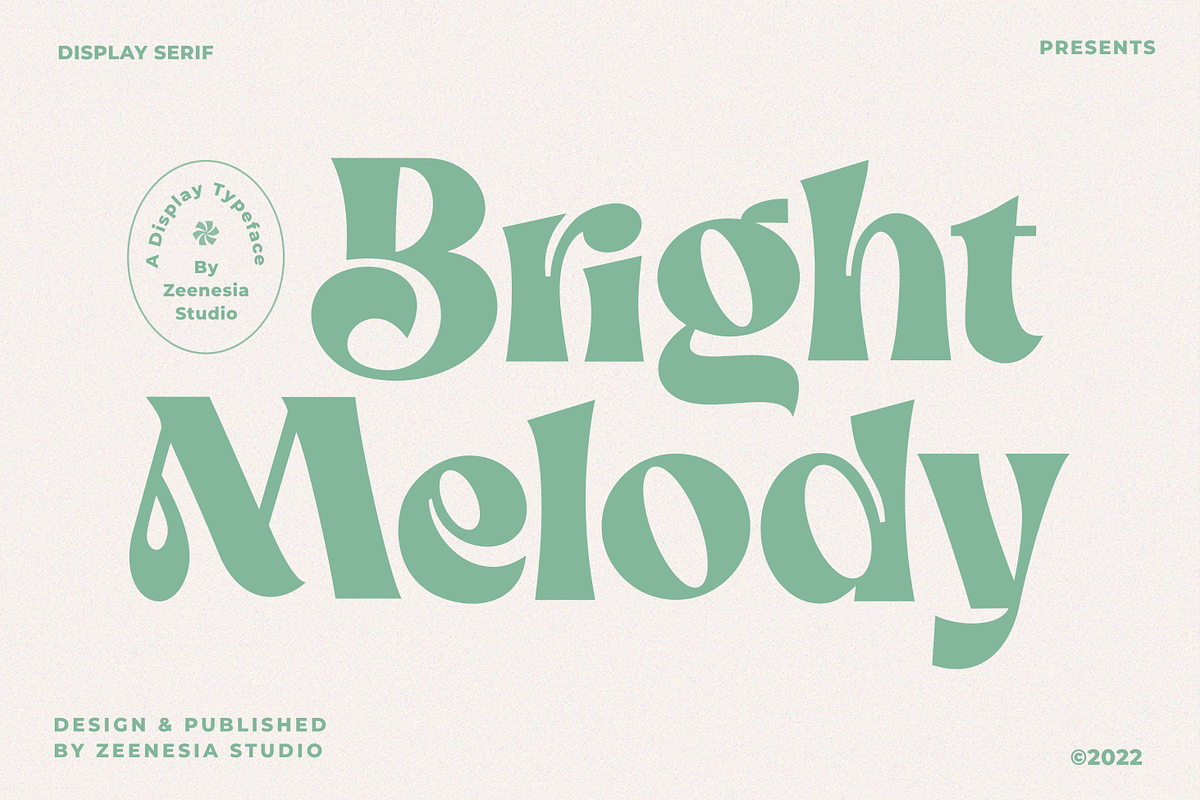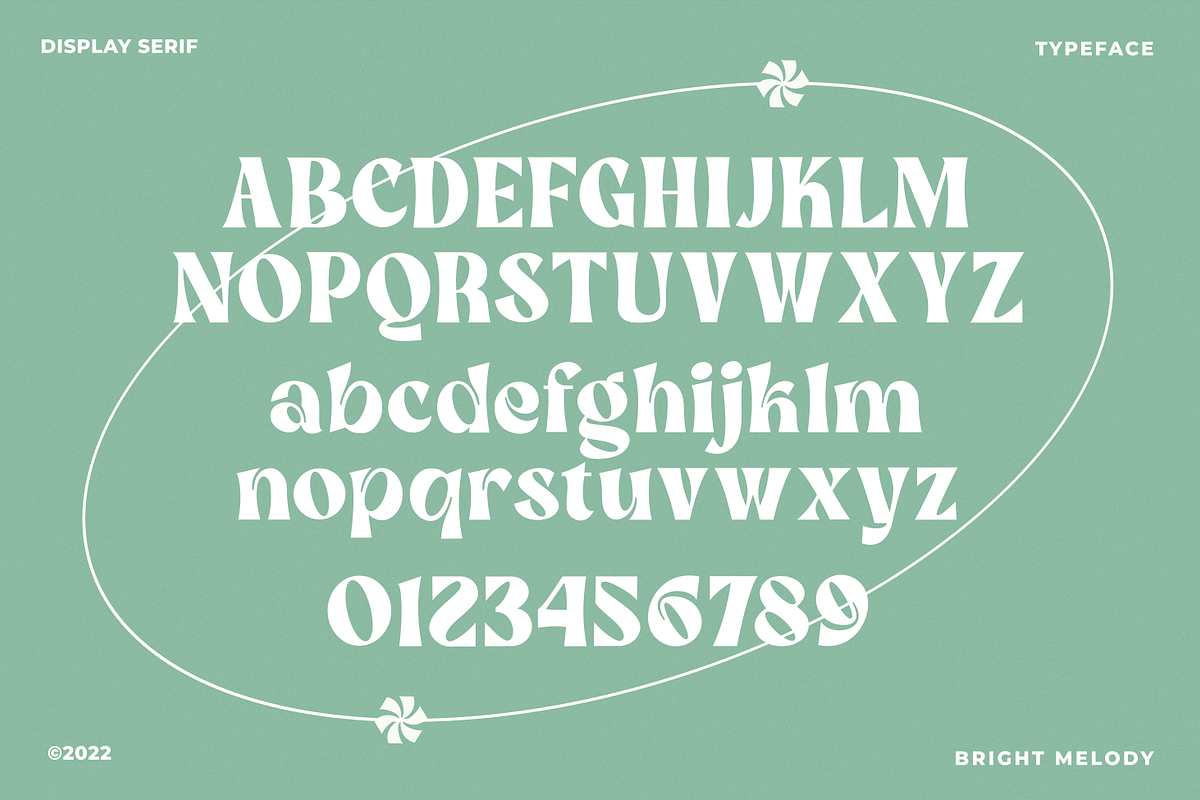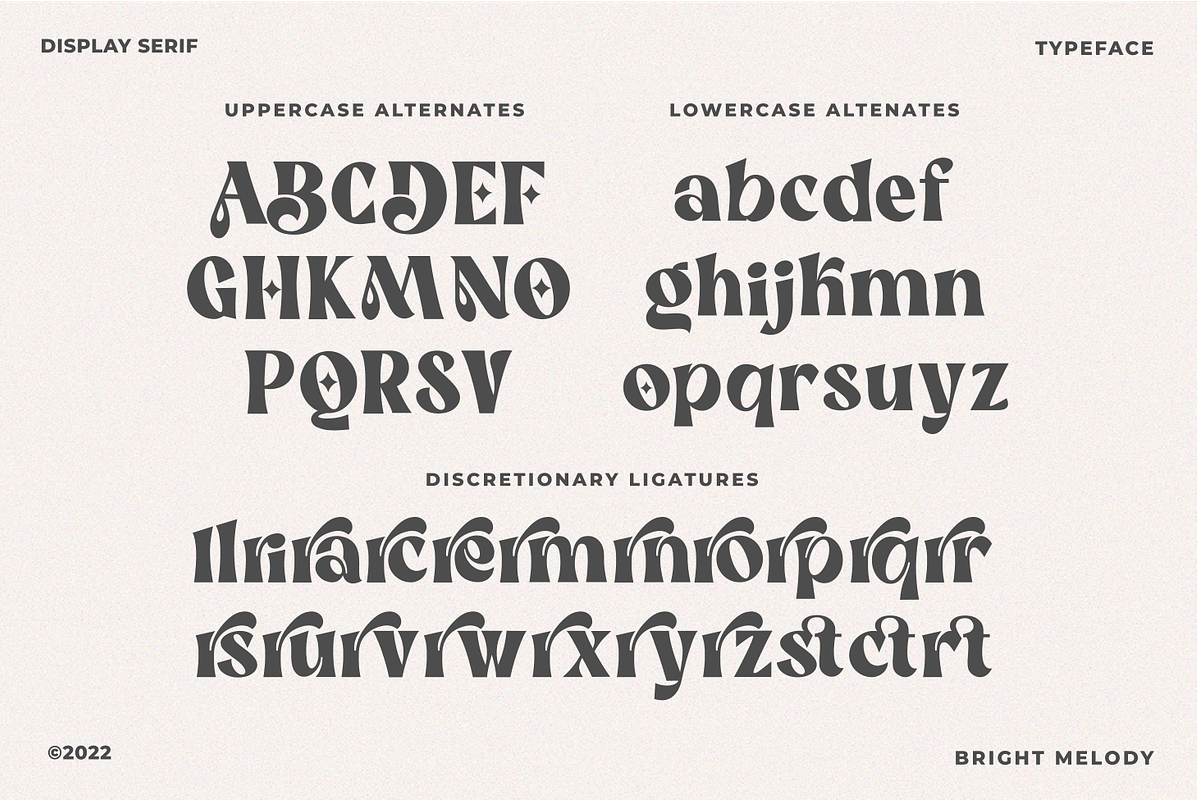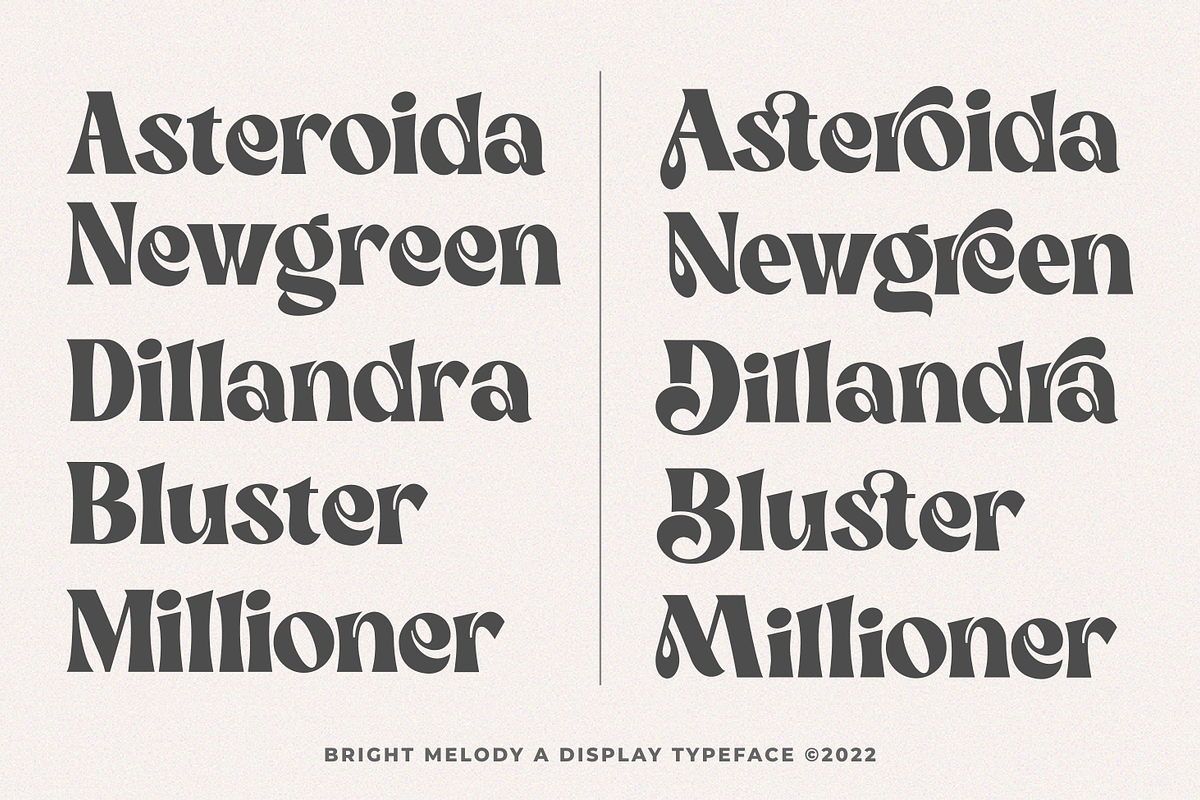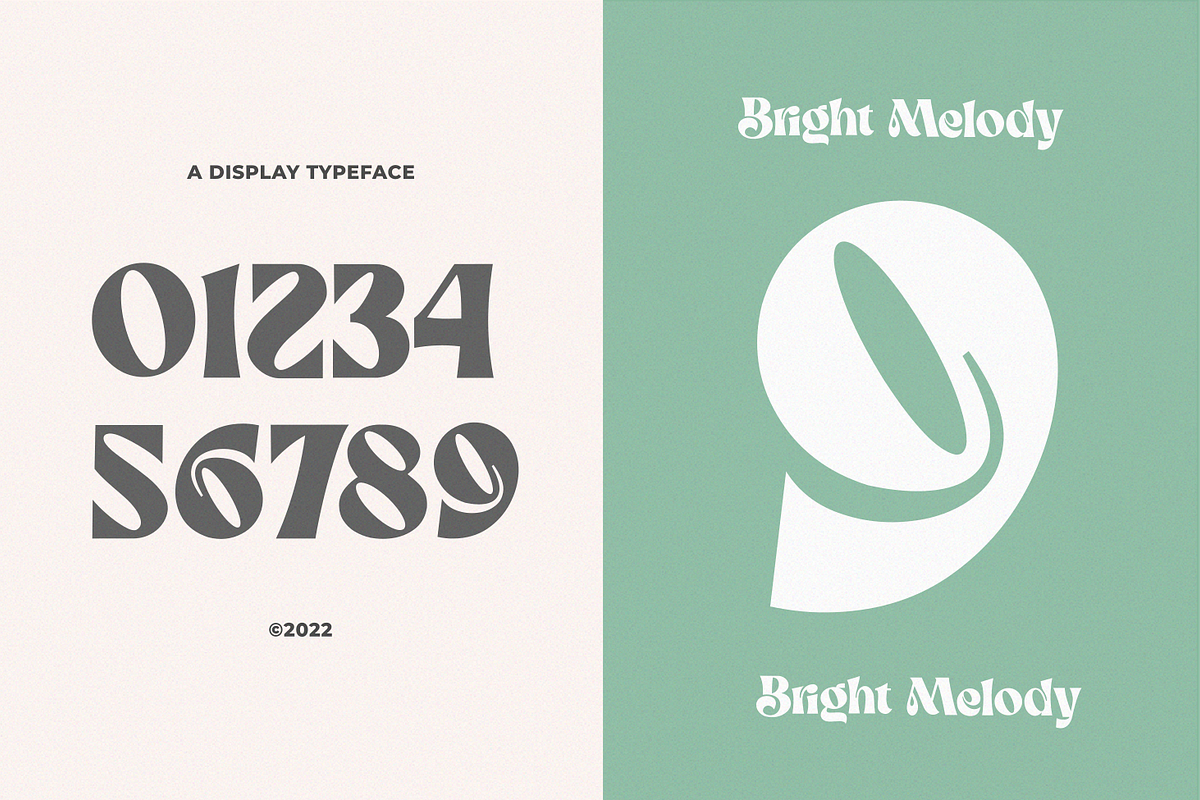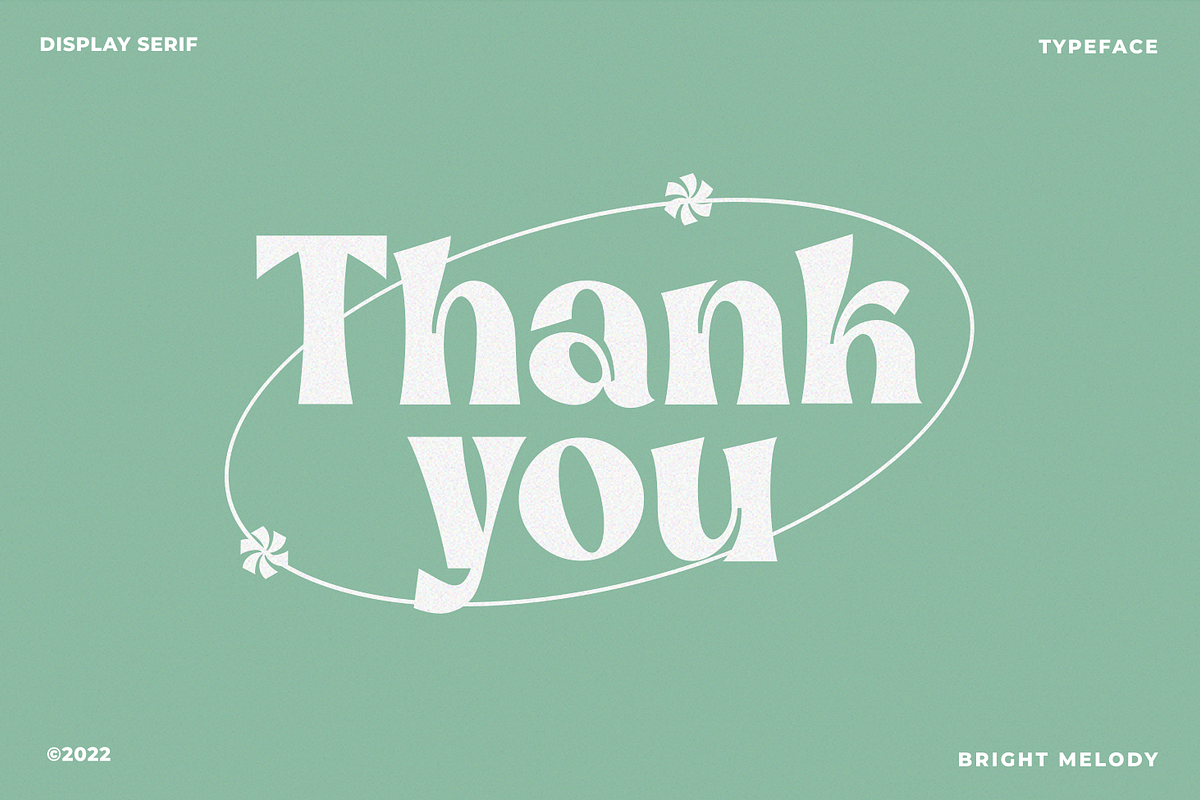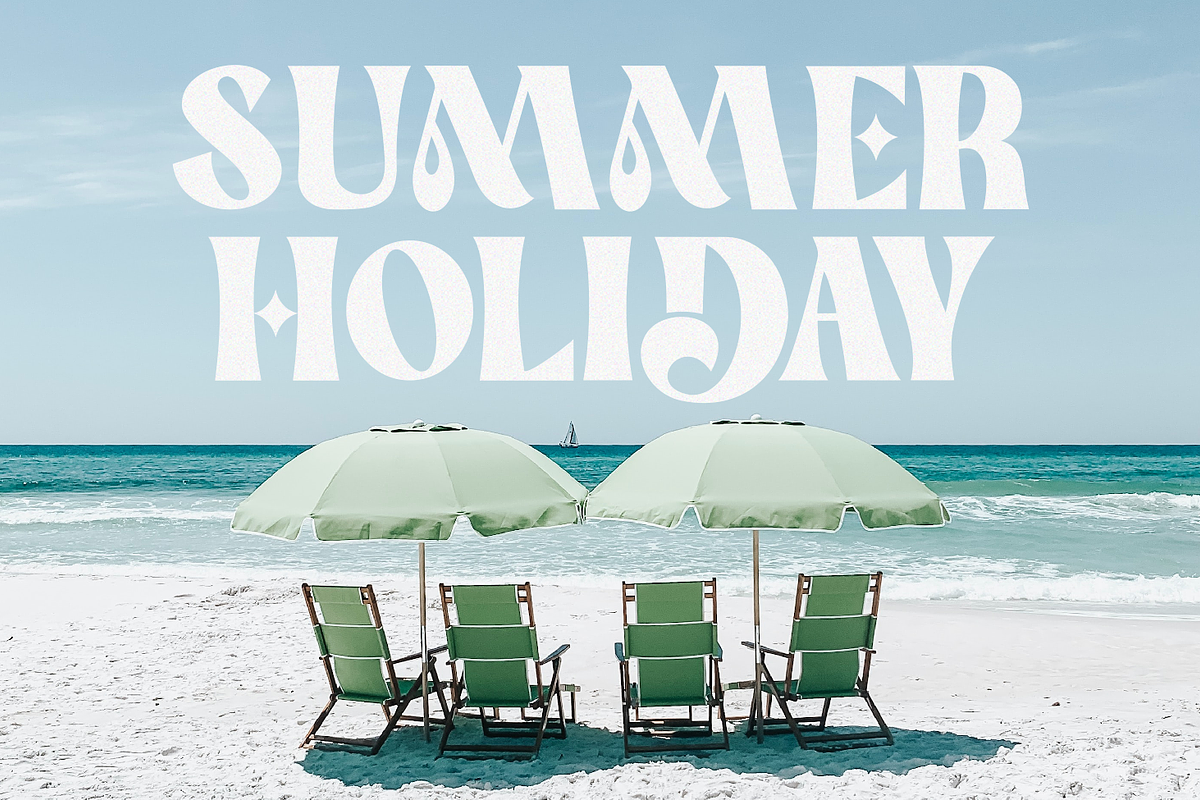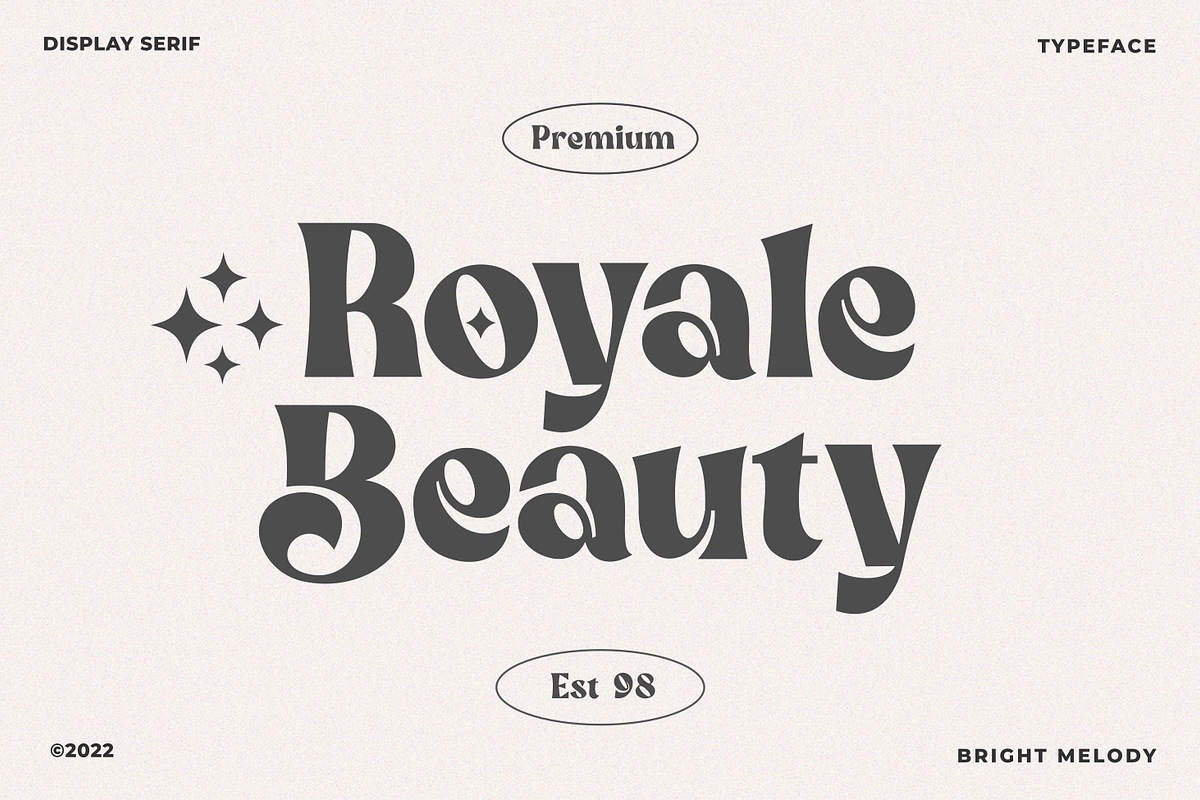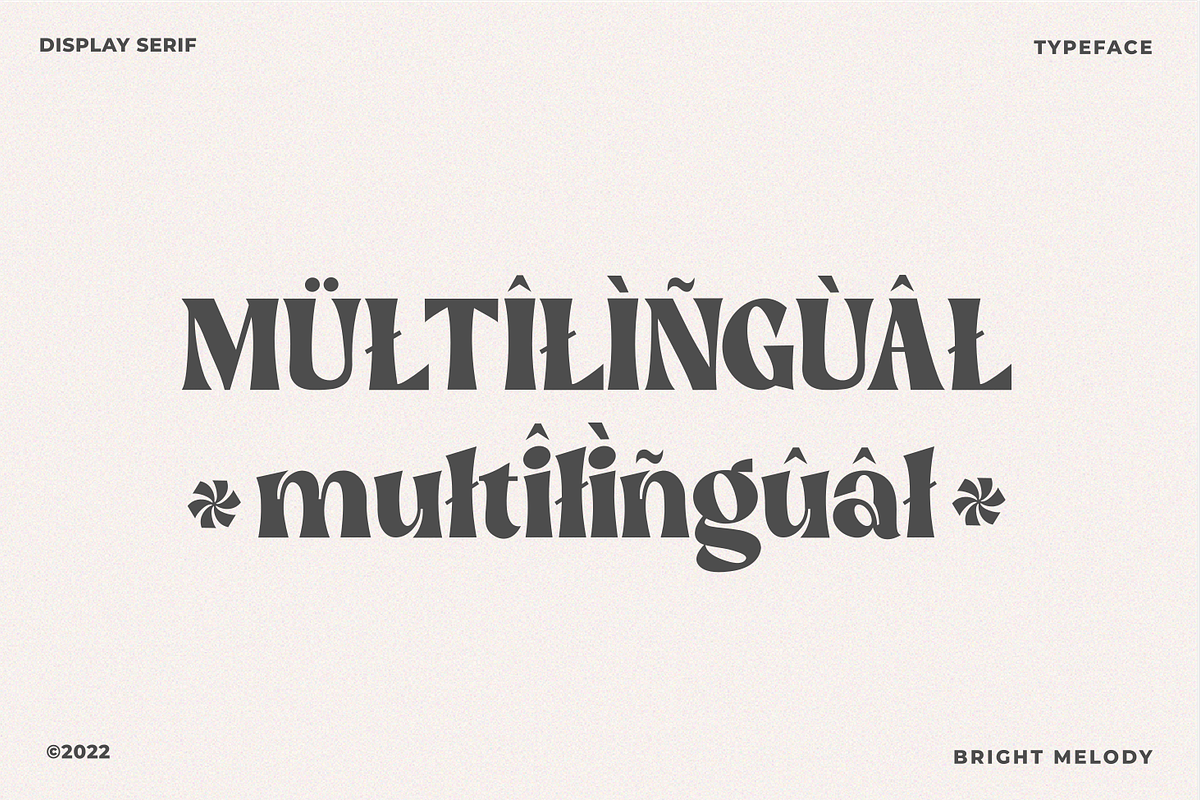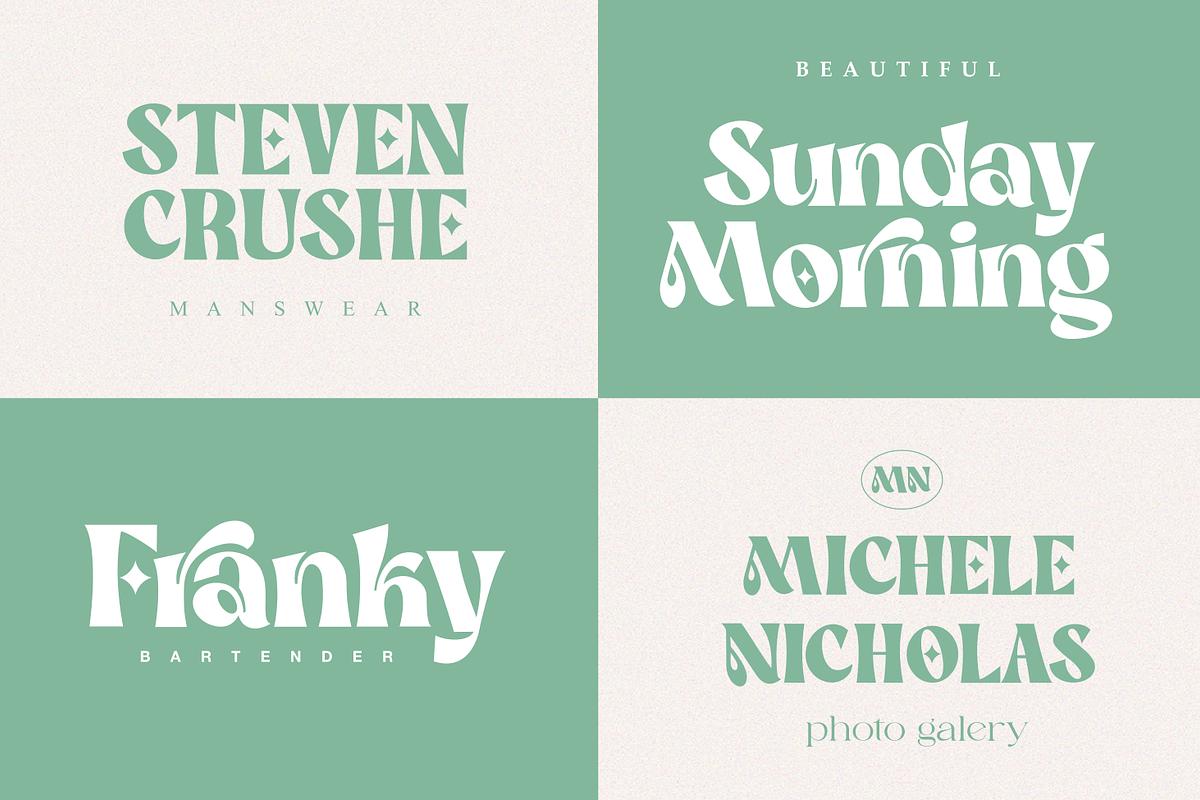
Bright Melody A Display Typeface
Bright Melody is a Bold vintage style serif font with strong character and soft features. modern and classic serif font with a clear and bold look. It’s a very versatile font that works great in large.
Bright Melody was built with openType features, stylistic Alternate and Ligature makes your project will be awesome!
Perfect for editorial projects, Logo design, web font, clothing branding, product packaging, magazine headers, or simply as a stylish text overlay to any background image.